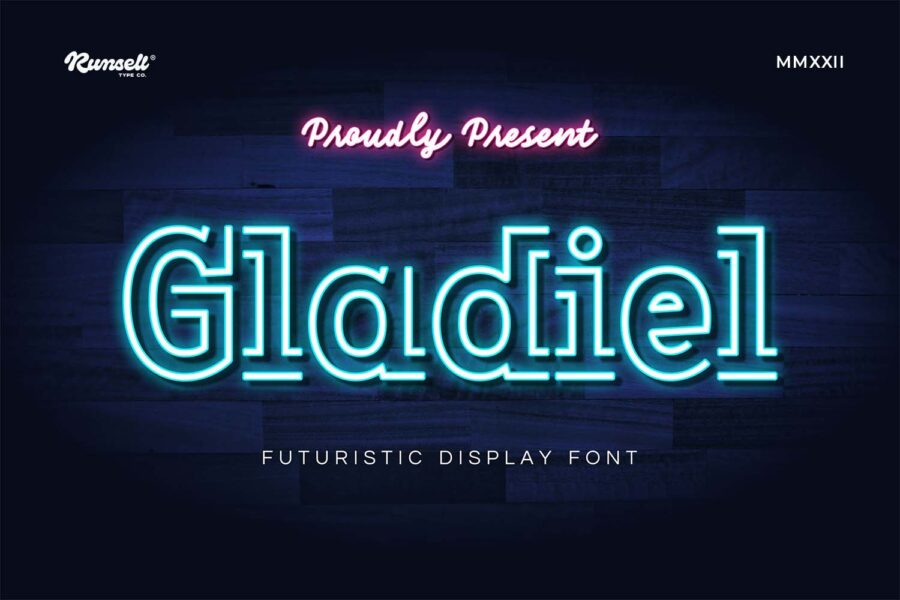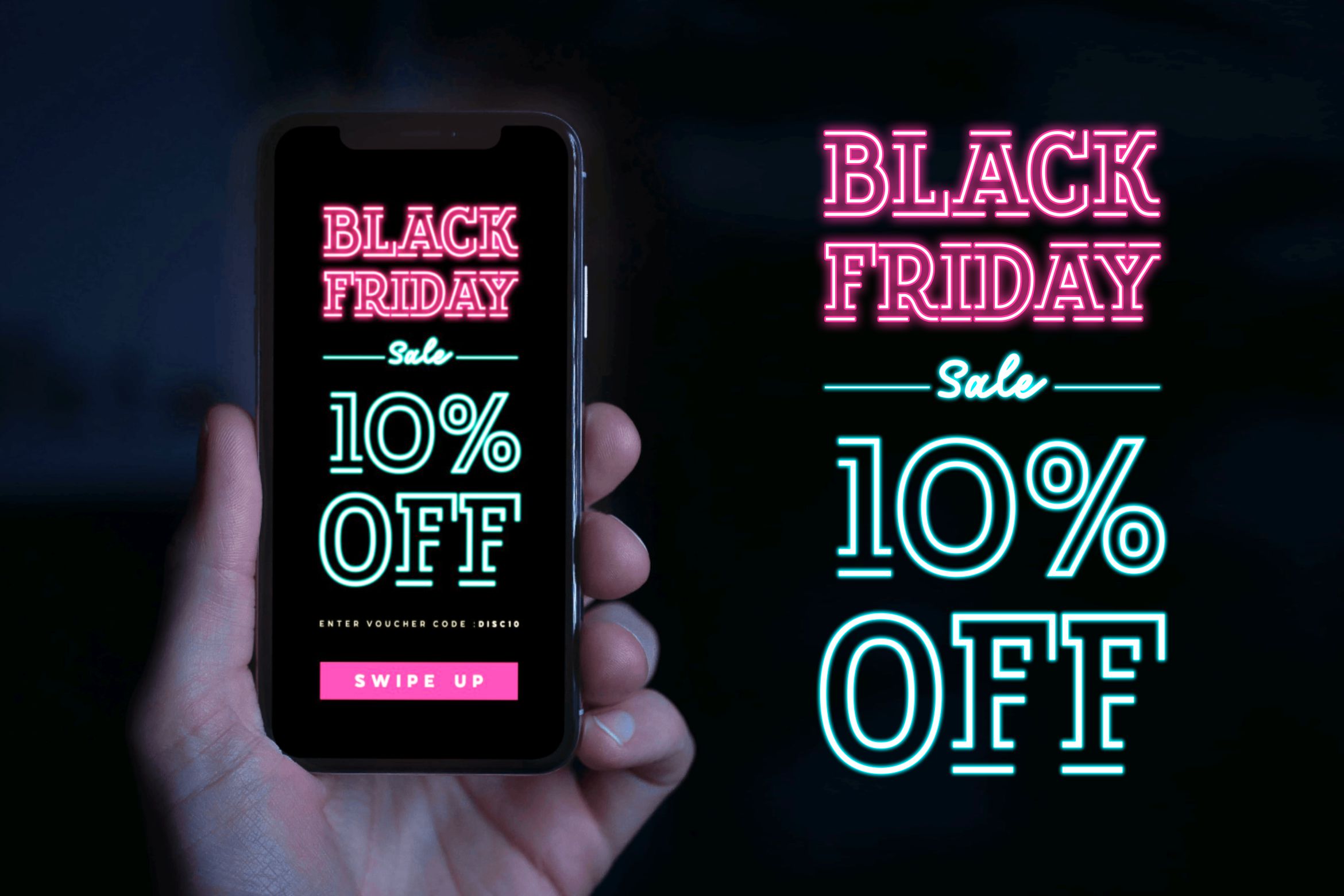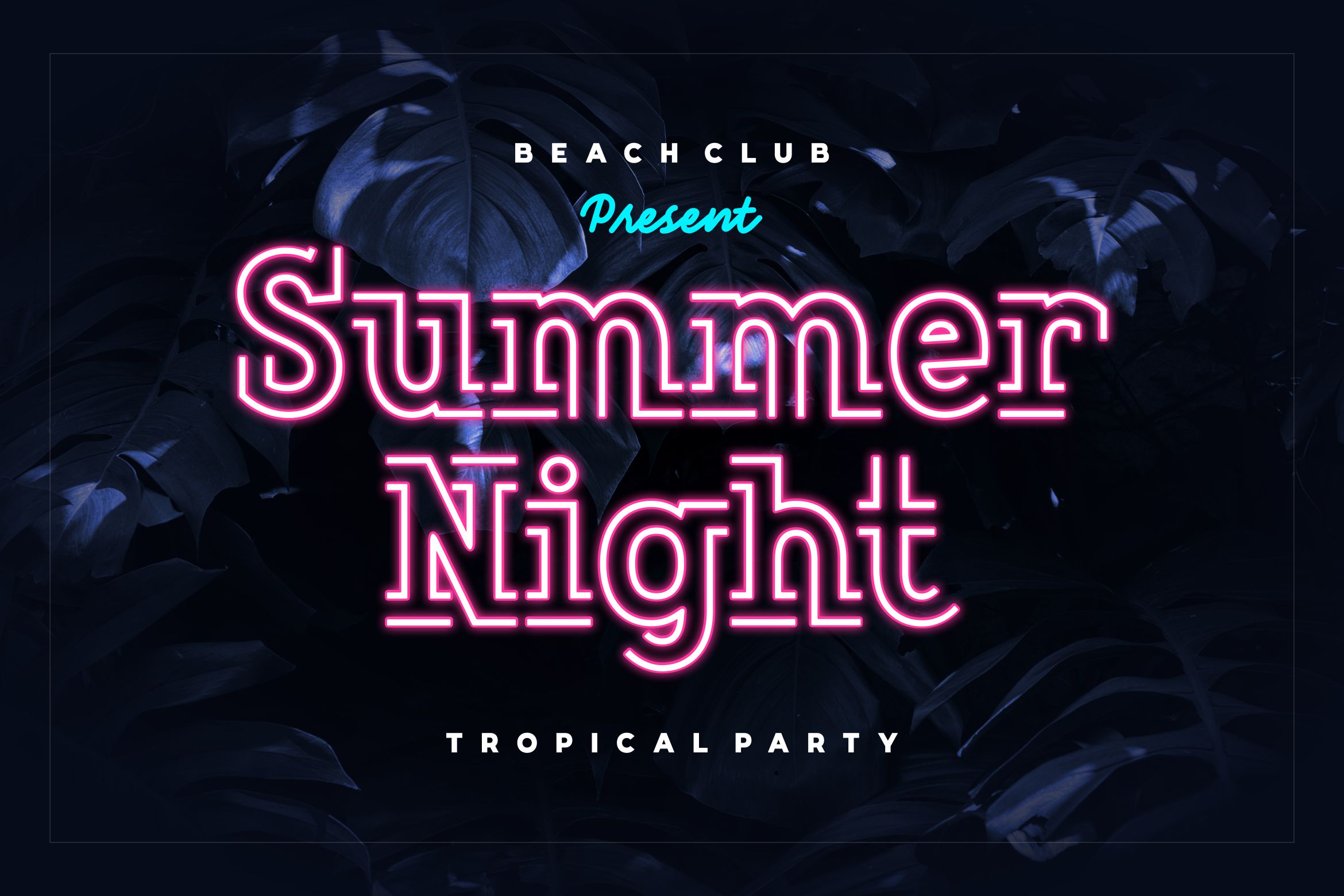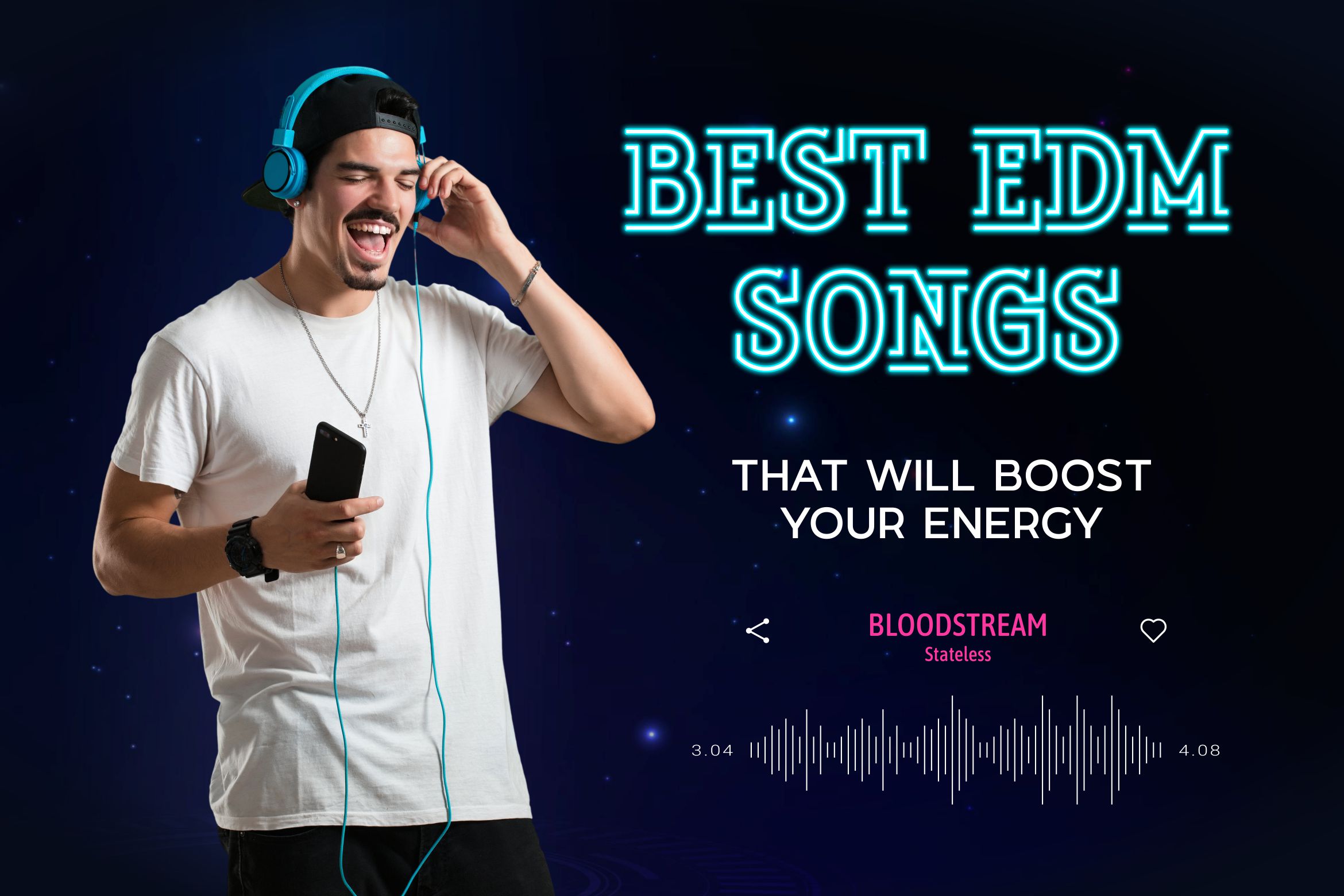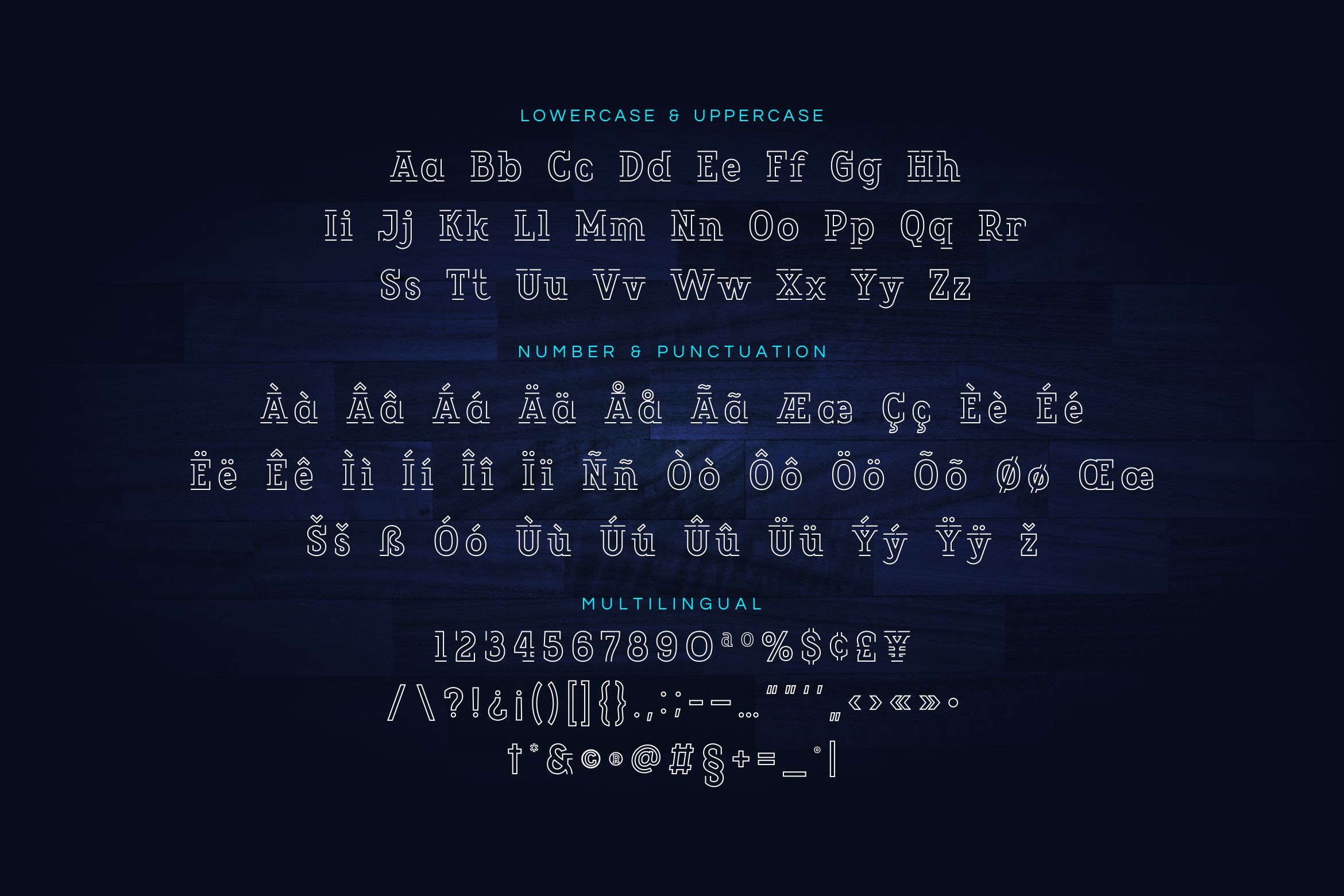
Gladiel is a futuristic display font inspired by neon lights and digital nightlife aesthetics. Its bold line structure and glowing inline style make it ideal for designs that aim to stand out in dark or high-contrast settings. Whether you’re crafting EDM posters, modern advertising, or UI interfaces, Gladiel delivers a vibrant, tech-forward look that feels both retro and contemporary.
The font includes uppercase, lowercase, numerals, punctuation, and multilingual support — all designed with glowing neon effects in mind. Gladiel works best for headlines, signage, product branding, and social media visuals that need energy and bold character. Light up your message with a typeface that feels electric and expressive.
Gladiel